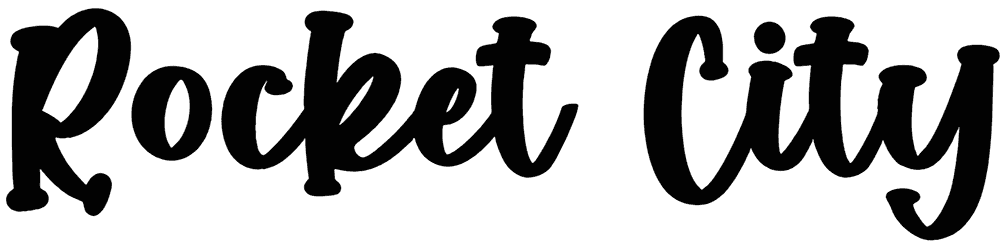
Rocket City Font
Baby posters, kindergarten flyers, cartoon commercials, and kids’ storybook covers are projects that require a cartoon font like Rocket City. Chunky and hand-drawn letters are the elements that give this font the cartoonish look that you require for your projects.